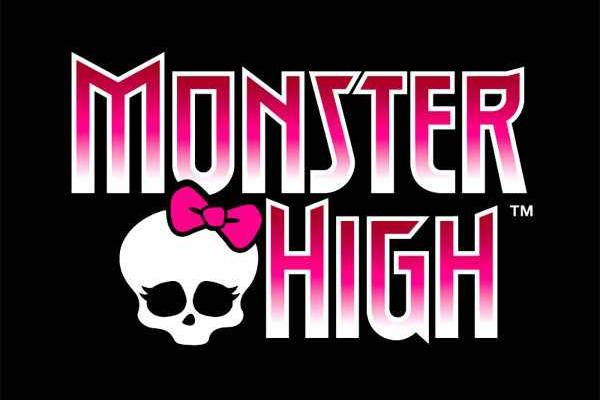
The name of the Monster High font which looks alot like the official logo lettering for this kids animated series, is a typeface by the name of Runy Tunes Revisited NF. It was designed and created by the prolific font author Nick Curtis, and was first released in 2013.
The Monster High font resembles the handwriting of the characters in the show, and its unique writing is part Monster and part girly. So, if you're looking to give your texts a bit of a twist from the usual, these fonts would make a great fit! Add an extra touch of the fun of spooky and stylish to your notes with these fonts. Halloween? No problem! These monster-inspired texts are not your typical font. Welcome your guests with a bizarre but cute message in these fonts. They are perfect for creating invitations, making announcements, or even for your social media posts where you need to tweak your texts to get that Monster High vibe going!